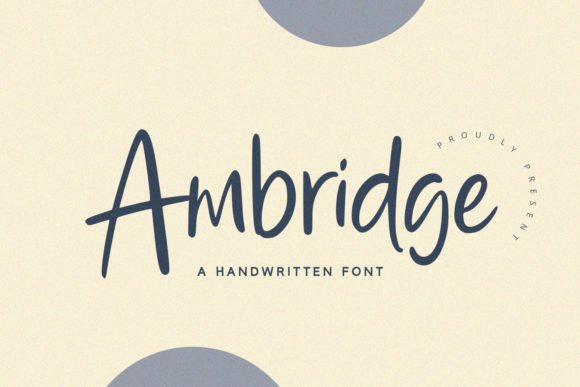
Discover the Elegance of Ambridge: A Captivating Handwritten Script Font
Journey into the realm of typography with Ambridge, a breathtaking handwritten display font crafted by the talented alpapranastudio. This masterpiece captures the essence of natural and modern aesthetics, inviting you to elevate your designs to new heights. With its graceful curves and authentic charm, Ambridge is the perfect font for those seeking a touch of sophistication and individuality in their creative projects.
Step into a world of boundless possibilities with Ambridge, the font that speaks to your heart. Whether you're a seasoned designer or a creative enthusiast, Ambridge will effortlessly enhance your designs, adding a layer of depth and emotion that resonates with your audience. Its versatility knows no bounds, making it an ideal choice for an array of projects, from captivating logos and branding materials to eye-catching posters and packaging designs.
Unleash your creativity and let Ambridge guide you through a symphony of design possibilities. Its natural flow and modern touches will transform your projects into captivating works of art. Imagine your words dancing across the page, imbued with the elegance and charm of Ambridge.